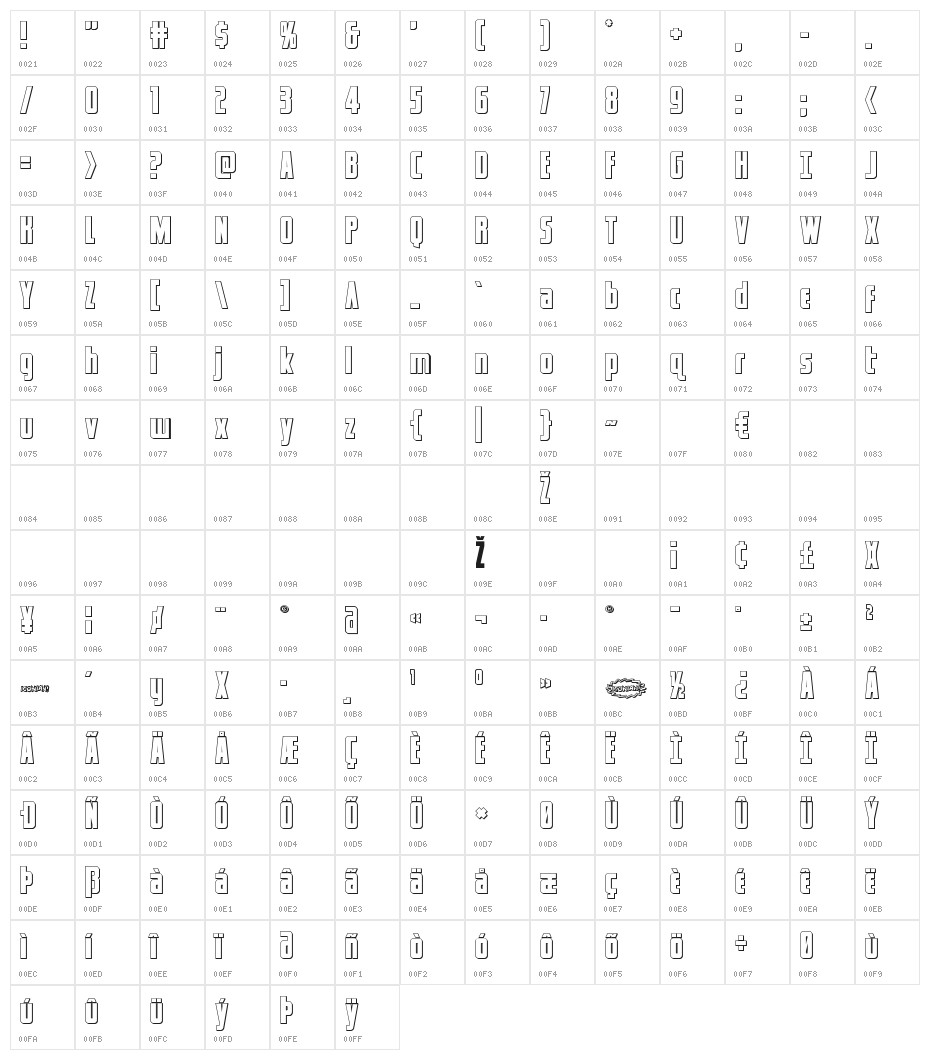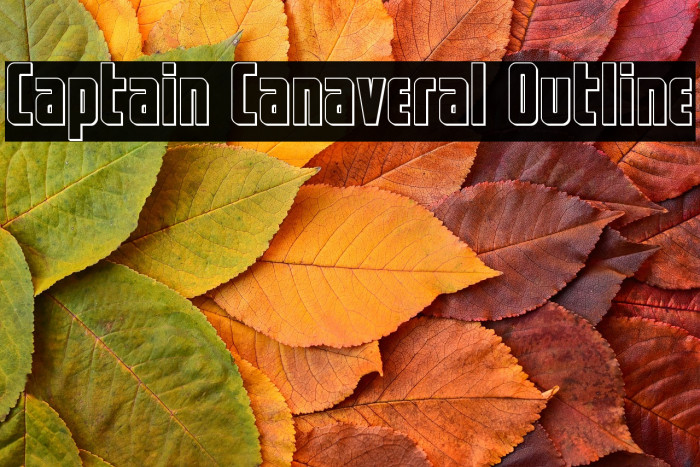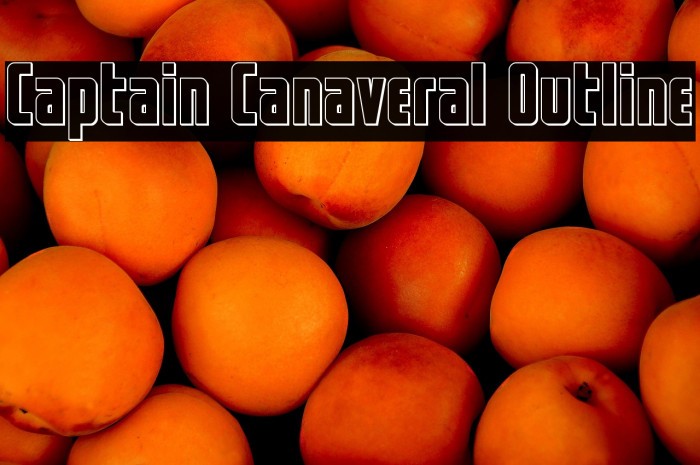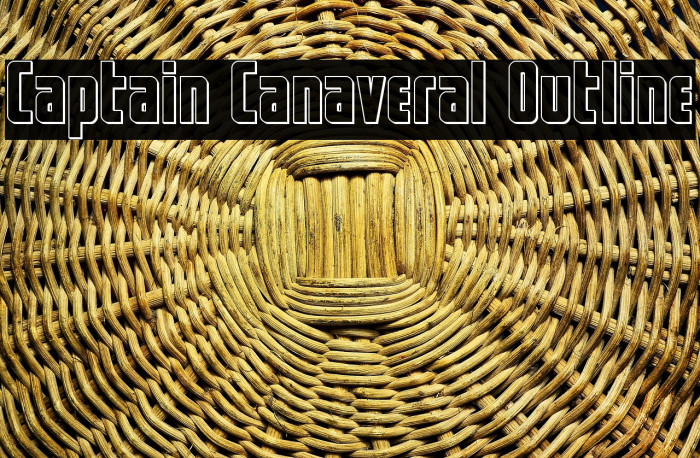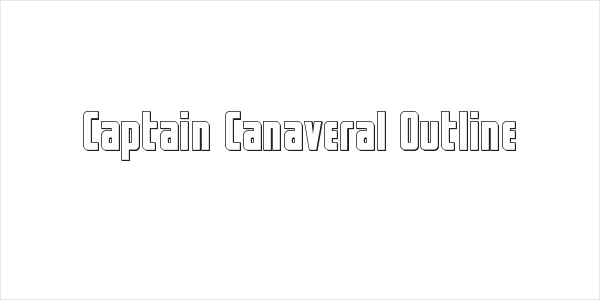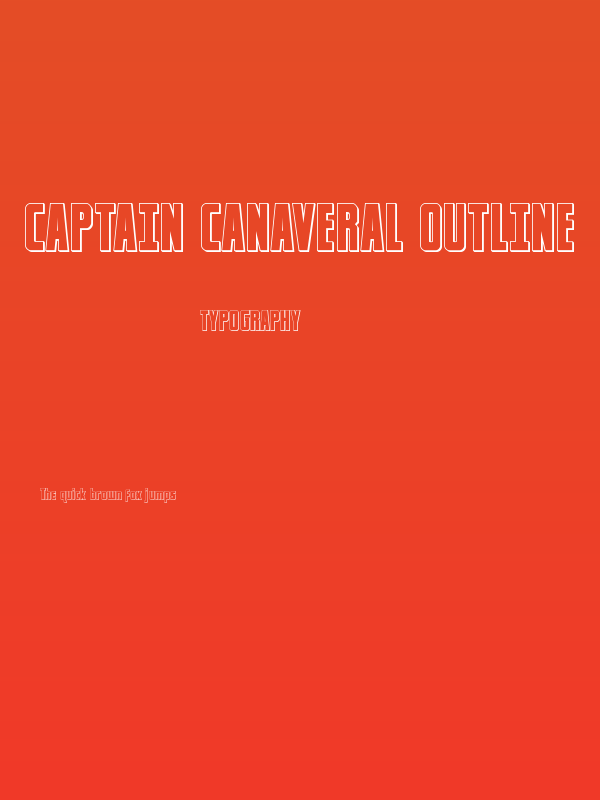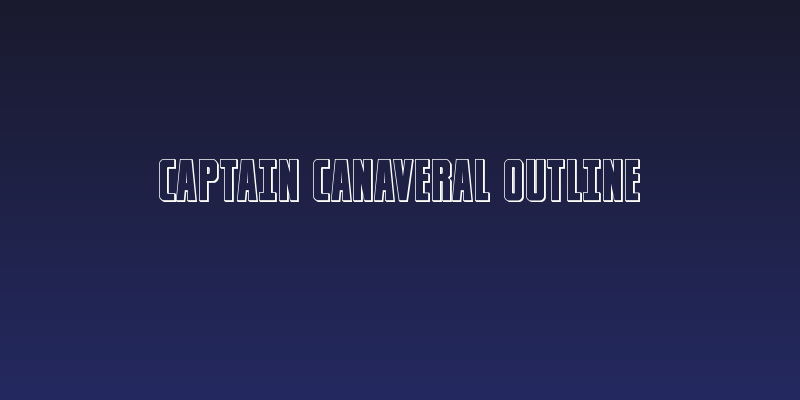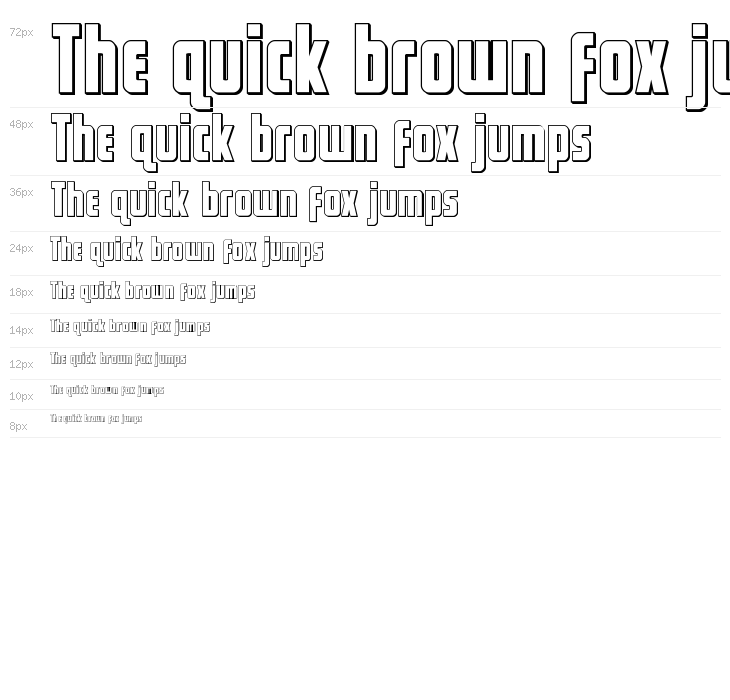
Captain Canaveral Outline Font
Captain Canaveral Outline Description
This font features a bold, outlined style with a modern and futuristic aesthetic. The characters are uppercase and lowercase letters, numbers, and a variety of special symbols. Each letter is defined by a thick, uniform outline that gives it a strong presence on the page. The geometric shapes and clean lines make it ideal for attention-grabbing headlines and titles. The font's structure is consistent, with a uniform width and height across all characters, providing a balanced and cohesive look. The spacing between characters is normal, ensuring readability while maintaining its bold appearance. This font is perfect for projects that require a modern, impactful style, such as posters, logos, and branding materials.
| Proposed Projects | Ideal for posters, logos, branding, and headlines. |